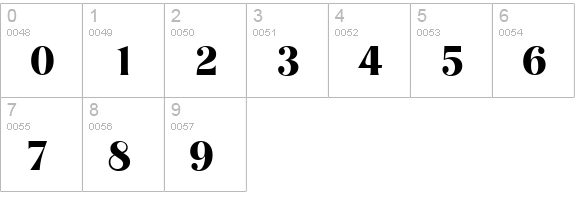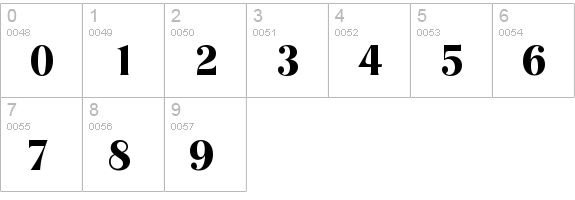
NashvilleSerial-Bold is a strong, high-contrast variant in the NashvilleSerial typeface family \xE2\x80\x94 well suited to headlines, attention-grabbing titles, and strong calls-to-action.
NashvilleSerial-Bold font is a bold and striking typeface that exudes confidence and modernity. With its clean lines and sleek appearance, this font is perfect for making a statement in any design project. The strong and impactful presence of NashvilleSerial-Bold font makes it ideal for headlines, titles, and branding materials. Best of all, NashvilleSerial-Bold font is available for free download at FontsMarket.com. Now you can easily access this stylish and versatile font to elevate your designs without any cost. Don't miss out on the opportunity to add NashvilleSerial-Bold to your font collection and bring your creative vision to life with ease.